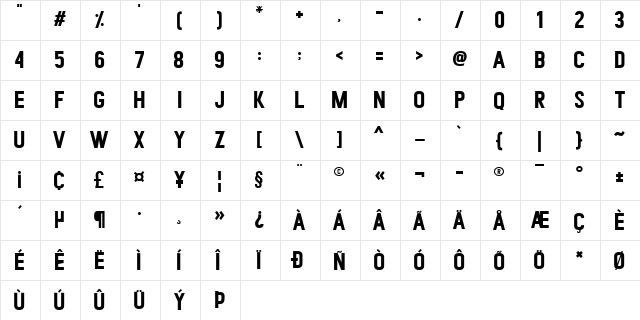
Romedhal Sans Regular
| Designer | Fahrul Arjianto |
Design Context for Romedhal Sans Typeface
Romedhal Sans offers clean, dependable letterforms without strong stylistic allegiance, making it a practical choice for designers who need flexibility.